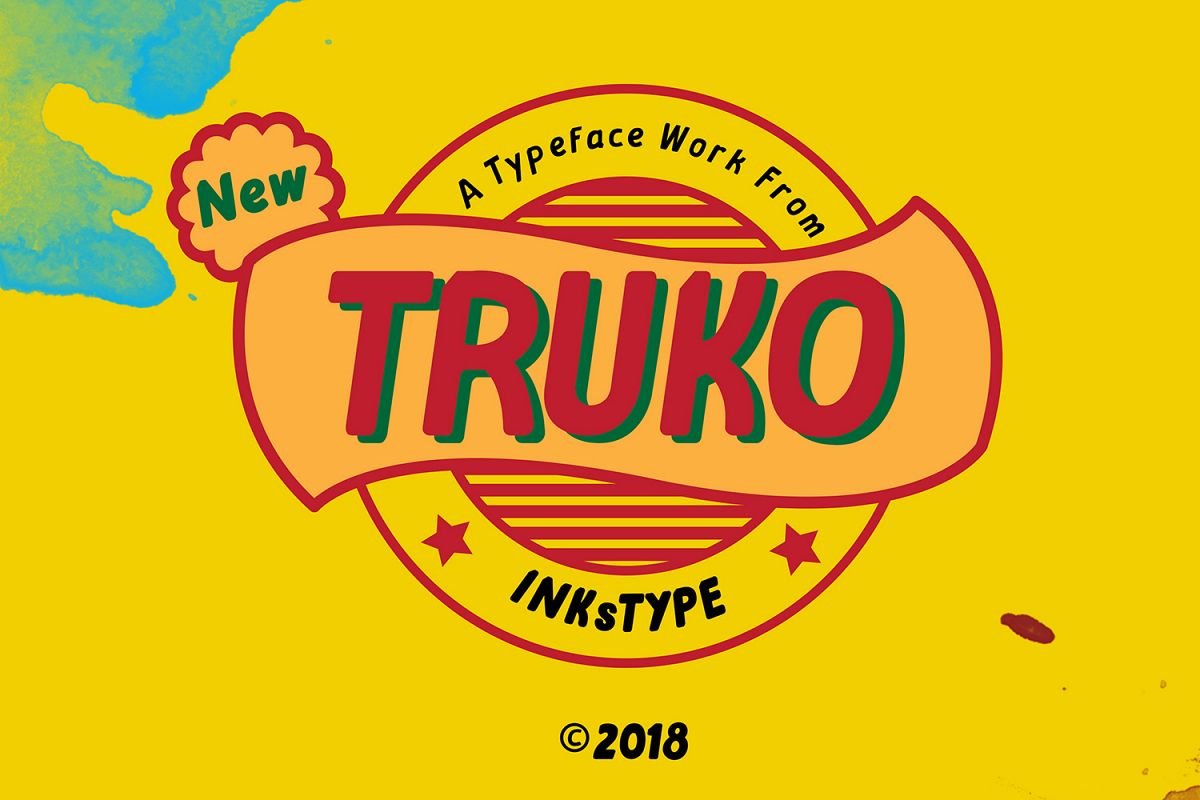
TRUKO
Truko Bold
Truko
A typeface design with vintage look, available with Regular & Bold style, with TTF and OTF format. Suitable for heading, display text and another design project.